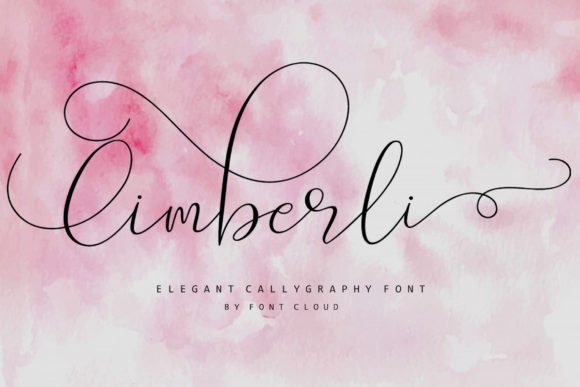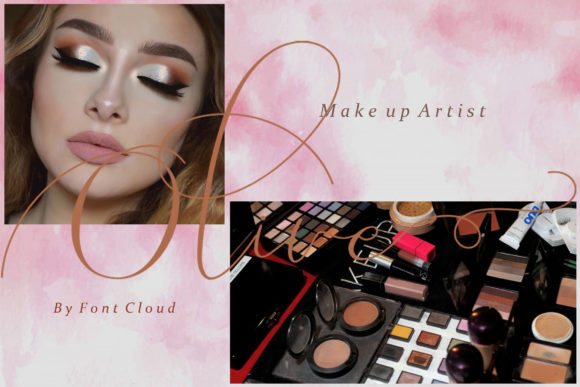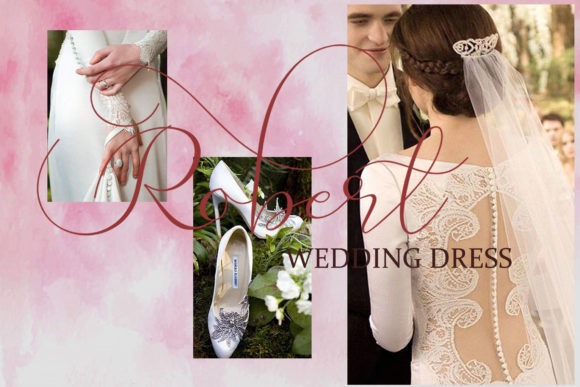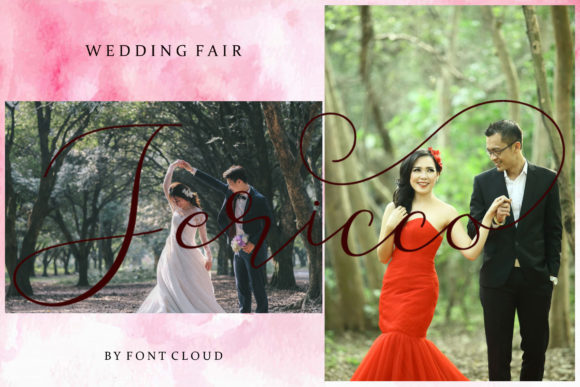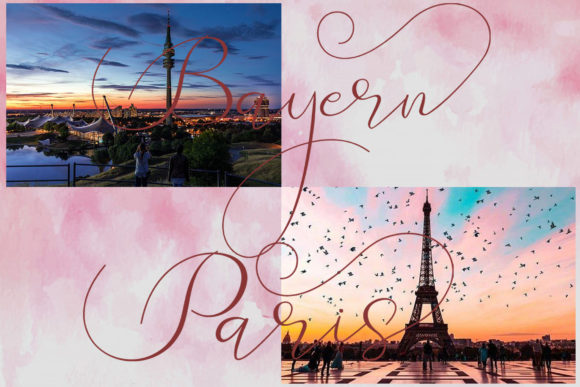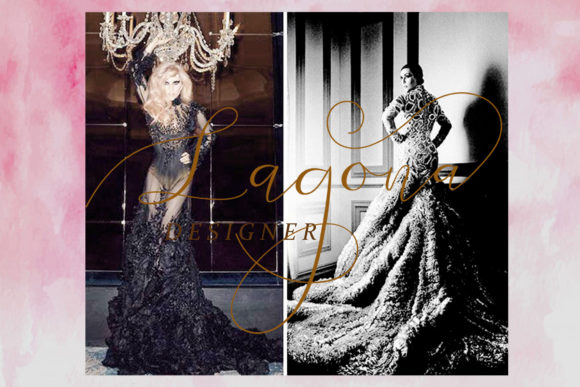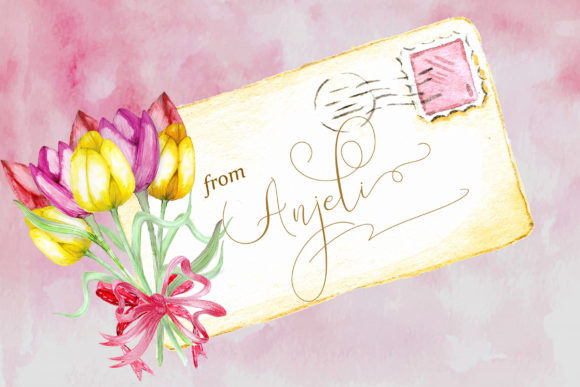
Have you ever been in the midst of brainstorming a new design, and suddenly, a spark of inspiration hits you? Maybe it’s the perfect font that will elevate your project from good to great. For me, that spark came when I stumbled upon the Cimberli Font. This sweet and modern calligraphy font is a game-changer, and I’m excited to share its features with you.
Cimberli Font is a versatile script that’s perfect for creating beautiful wedding invitations, stunning social media posts, and adorable greeting cards. With its gorgeous swashes and ligatures, this font is sure to add an authentic touch to any design. As a designer, you’ll appreciate the wealth of special features, including alternate glyphs and ligatures, that make it easy to create unique and eye-catching designs.
With the Cimberli Font, you’ll have endless possibilities to express your creativity and bring your designs to life. Whether you’re a seasoned designer or just starting out, this font is a valuable addition to your toolkit. So why not give it a try and see what amazing things you can create?
Cimberli Font Key Features
- Font Family: Cimberli is a modern script font designed for elegant and sophisticated typography.
- Size and Resolution: Available in various font sizes, including 18pt, 24pt, 36pt, and 48pt, with a recommended resolution of 300 DPI for print and 72 DPI for digital use.
- Unique Characteristics: Cimberli features a unique, flowing script design with subtle flourishes and connections between letters, making it ideal for wedding invitations, branding, and other high-end applications.
Cimberli Font Review
Cimberli font is an elegant and refined script font that can add a touch of sophistication to your designs. ✨ I love how it flows smoothly, making it perfect for creating a sense of luxury and high-end feel. The font is highly versatile and can be used for a variety of purposes, from branding to packaging.
- Unique flair: Cimberli font has a distinctive flair that sets it apart from other script fonts, making it a great choice for designers looking to add some personality to their work.
- Elegant feel: The font’s elegant feel makes it perfect for creating a sense of refinement and sophistication.
- Highly customizable: Cimberli font can be customized to fit your design needs, making it a great choice for designers who want a high degree of control.
- Not ideal for body text: Due to its script nature, Cimberli font may not be the best choice for body text, as it can be difficult to read at small font sizes.
- Limited language support: Cimberli font may not support all languages, which could be a limitation for designers working with clients from diverse backgrounds.
Overall, Cimberli font is a great addition to any designer’s toolkit. While it may have some limitations, its unique flair and elegant feel make it a great choice for designers looking to add some sophistication to their work.
Getting the Most Out of Cimberli Font
To get the most out of Cimberli Font, use it for:
- Headings and titles for a unique and elegant look.
- Body text for a clean and readable format.
- Emphasis and highlights for added visual interest.
Cimberli Font is ideal for:
- Business branding and marketing materials.
- Personal projects and creative endeavors.
Alternatives to Cimberli Font for Designers
The Great Vibes Font is a modern and elegant script font that is ideal for creating a relaxed and casual atmosphere in designs. It’s perfect for use in wedding invitations, social media posts, and other creative projects where a touch of personality is needed.
Compared to Cimberli Font, Great Vibes Font has a more relaxed feel and is better suited for casual designs. While Cimberli Font has a more formal and sophisticated look, Great Vibes Font is more playful and creative.
Pacifico Font is a beautiful and elegant script font that is perfect for creating a sense of luxury and sophistication in designs. It’s ideal for use in high-end branding, advertising, and packaging projects where a touch of elegance is needed.